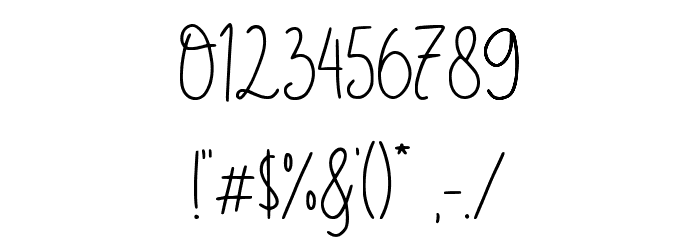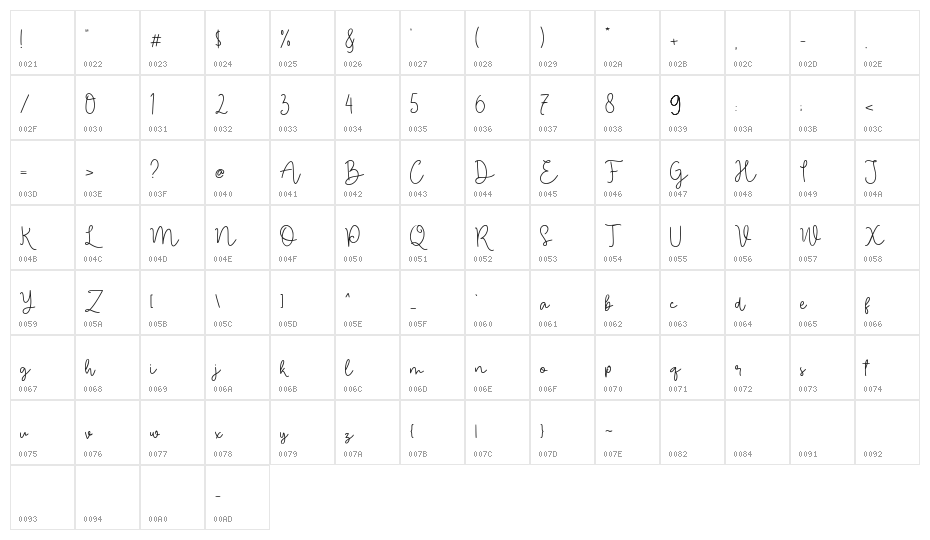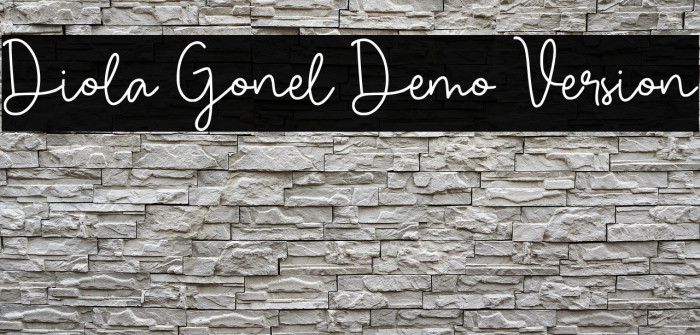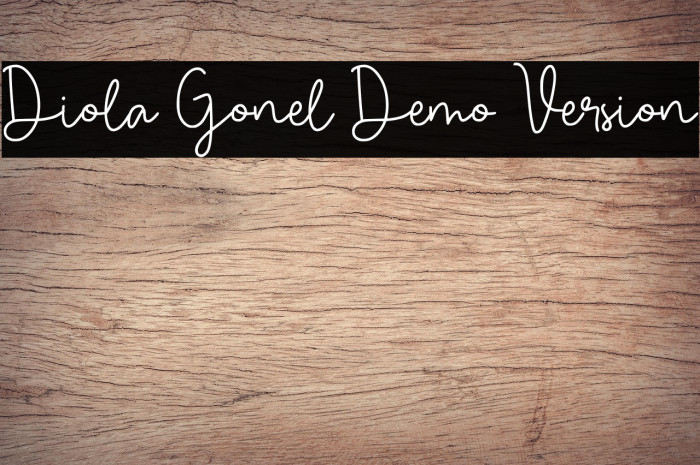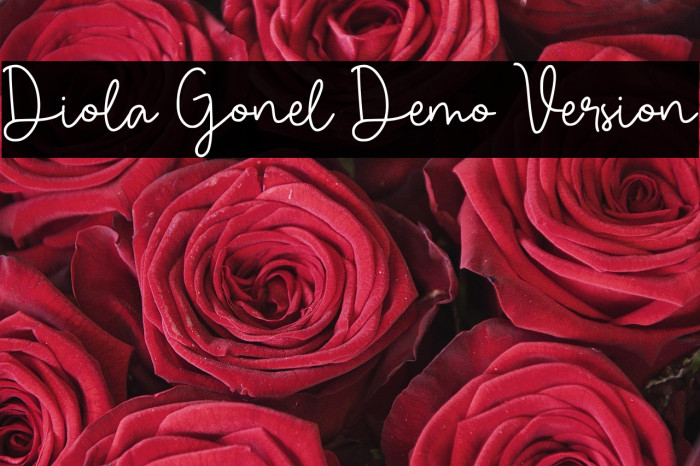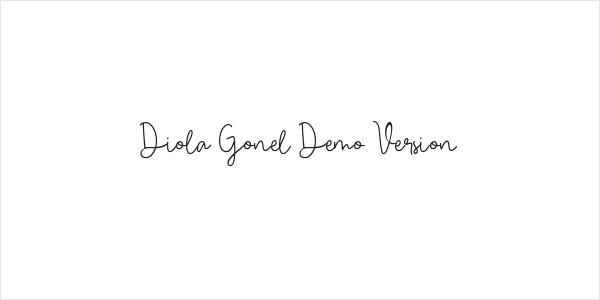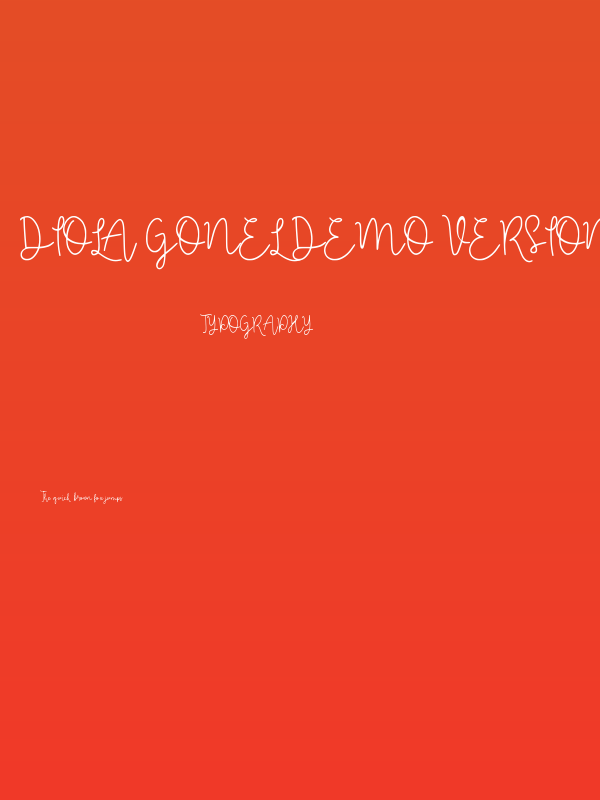
Diola Gonel Demo Version Font
Diola Gonel Demo Version Description
This font features a playful and elegant handwritten style, characterized by its fluid and cursive letterforms. The uppercase letters are tall and slightly whimsical, with a consistent stroke width that adds to its legibility. The lowercase letters maintain a smooth flow, enhancing the overall script-like appearance. Numbers and special characters are designed to match the font's casual yet sophisticated look, making it versatile for various design needs. The font's charm lies in its ability to convey a personal and friendly tone, suitable for creative projects.